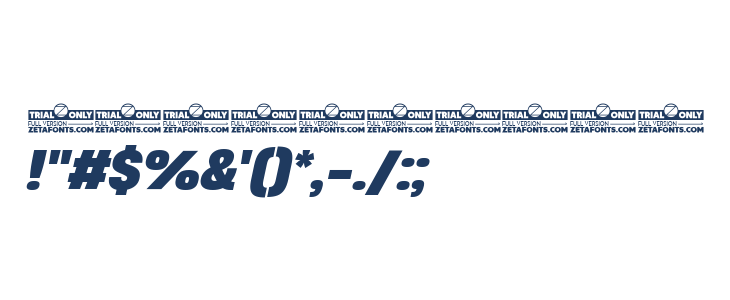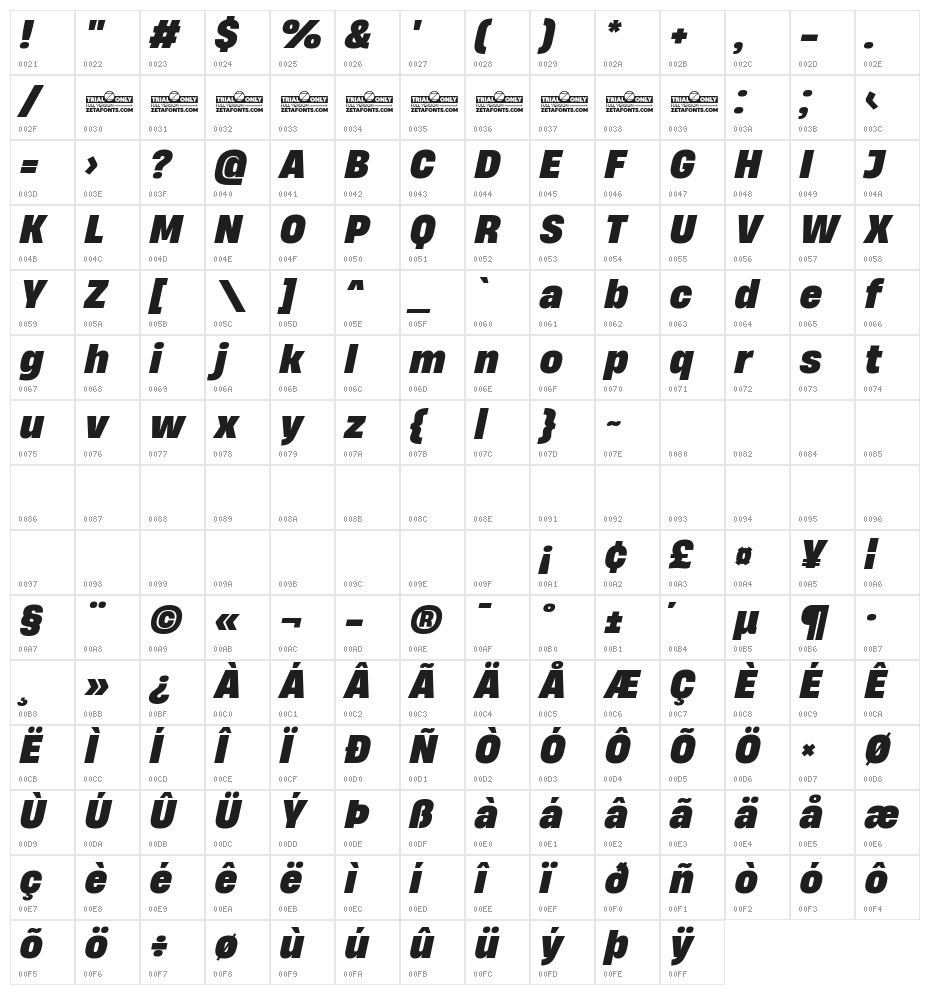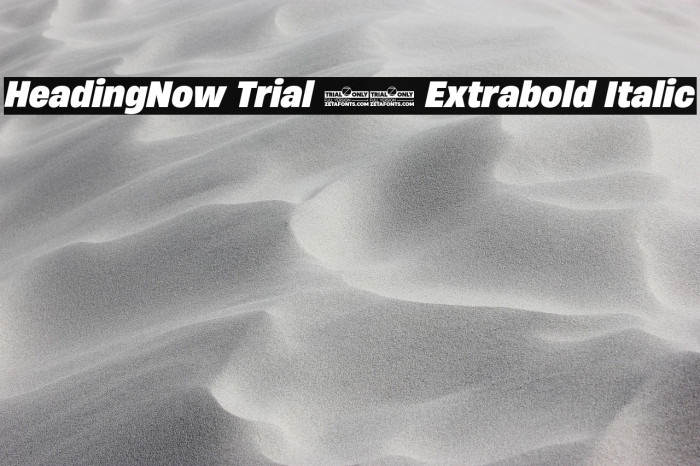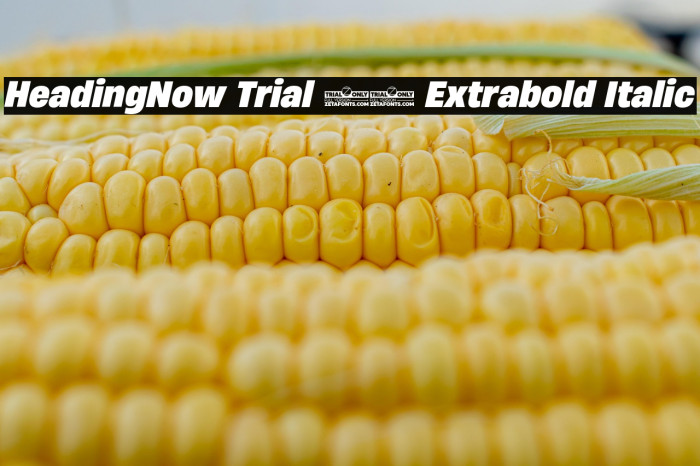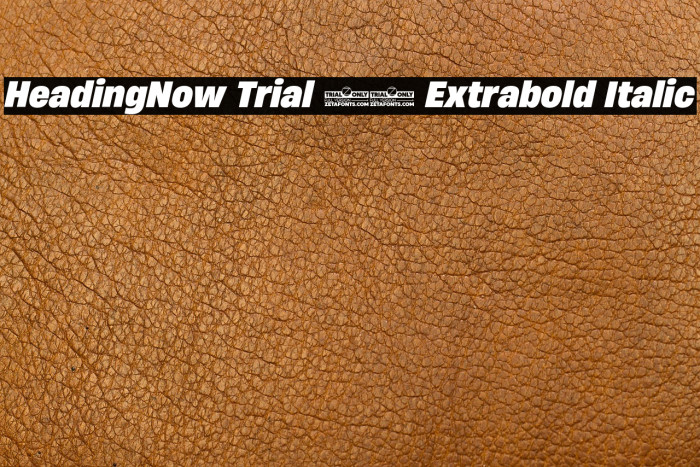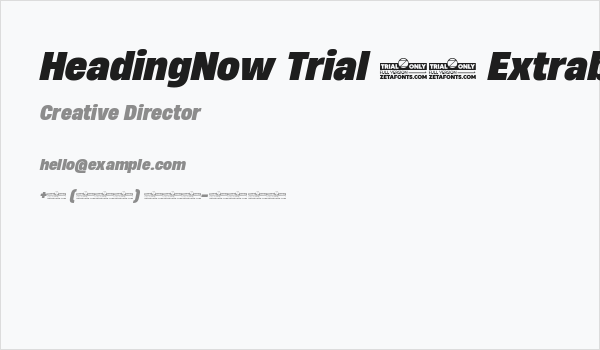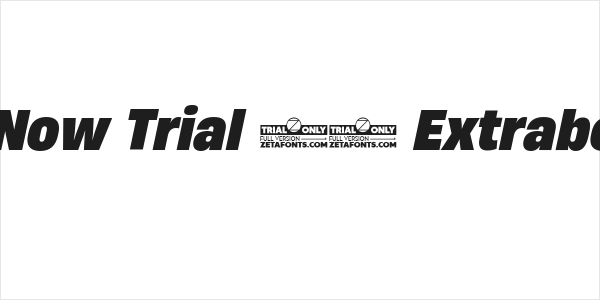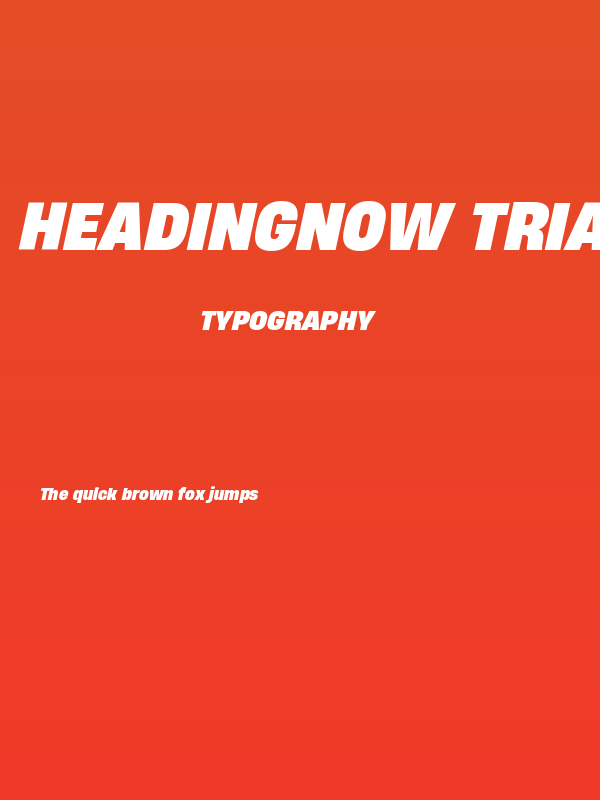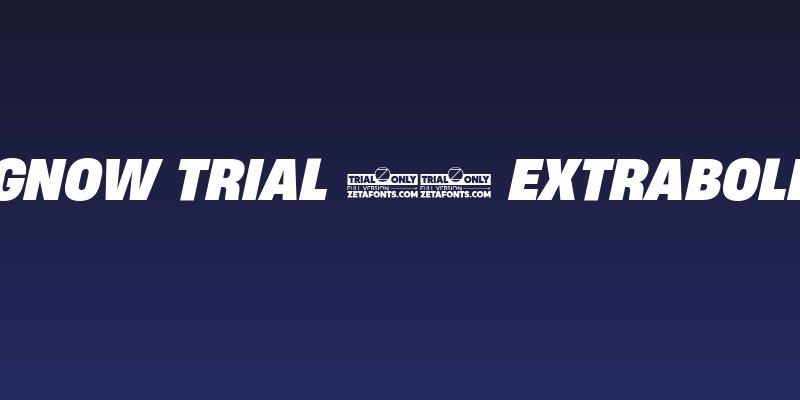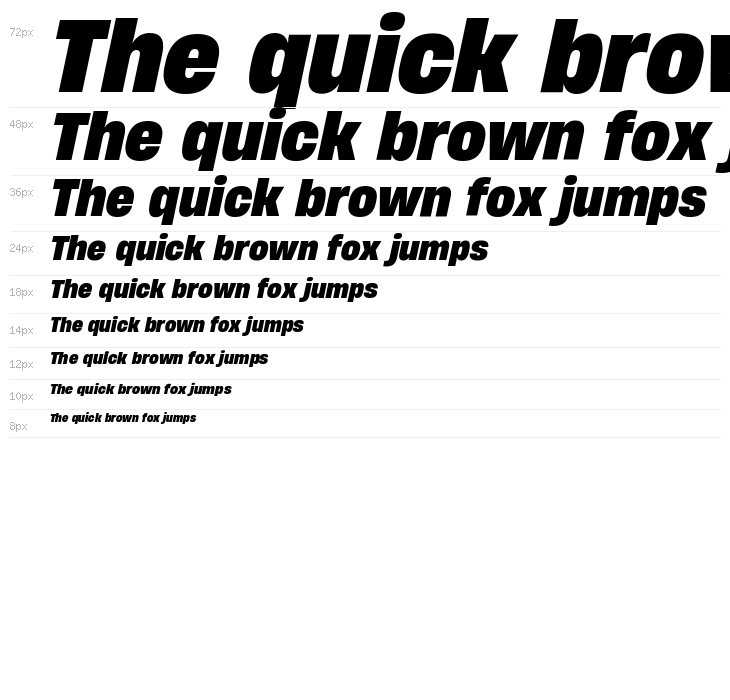
HeadingNow Trial 67 Extrabold Italic Font
HeadingNow Trial 67 Extrabold Italic Description
This font exhibits a bold and dynamic presence with its extra-bold weight and italic style. The characters are designed with a strong, impactful appearance, making them ideal for attention-grabbing headlines. The italic slant adds a sense of motion and urgency, enhancing its suitability for modern and energetic designs. The uppercase and lowercase letters maintain consistent proportions, ensuring readability while retaining a bold aesthetic. The numbers and special characters are crafted to match the overall style, providing a cohesive look across all text elements.
| Proposed Projects | Ideal for headlines, advertising, branding, and any project requiring a strong visual impact. |